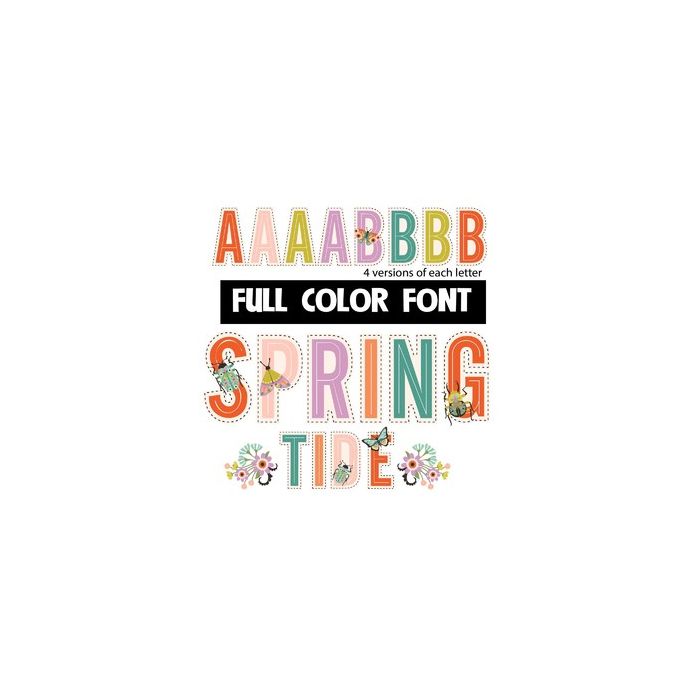
This full-color font features adorable, decorative bugs on many of the letters. There is an alt upper and lowercase you can access through Silhouette's glyph map.